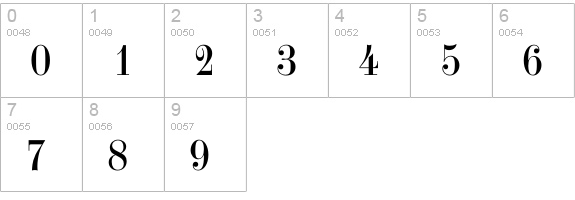
OPTITorry-Medium is a balanced, medium-weight variant in the OPTITorry typeface family \xE2\x80\x94 well suited to sub-headlines, navigation, and balanced editorial work.
Introducing OPTITorry-Medium font, a versatile and modern typeface that is perfect for a wide range of design projects. This font features a balanced combination of elegance and readability, making it ideal for both headings and body text. With its medium weight, OPTITorry-Medium strikes the perfect balance between boldness and subtlety, making it a great choice for creating eye-catching designs. What's even better is that OPTITorry-Medium is available for free download at FontsMarket.com. This means you can easily access this stylish font and use it in your projects without any cost. Whether you're working on a website, poster, brochure, or any other design project, OPTITorry-Medium is sure to elevate your typography game. Don't miss out on this fantastic font - download it today and add a touch of sophistication to your designs!